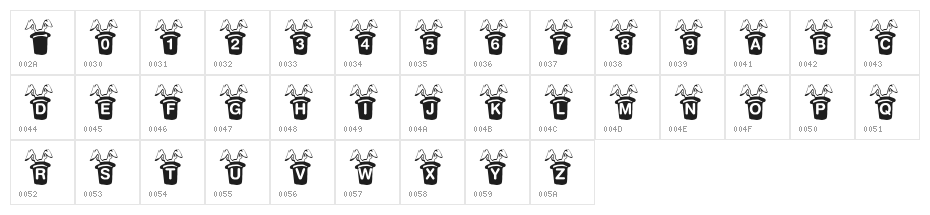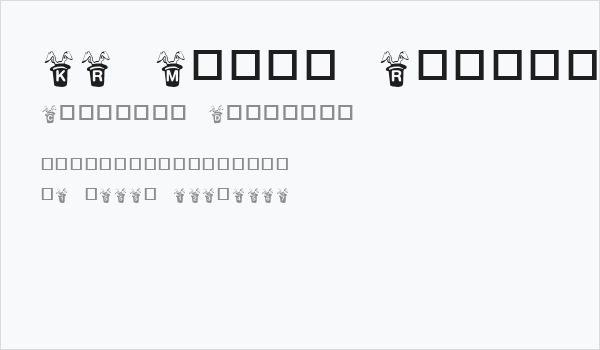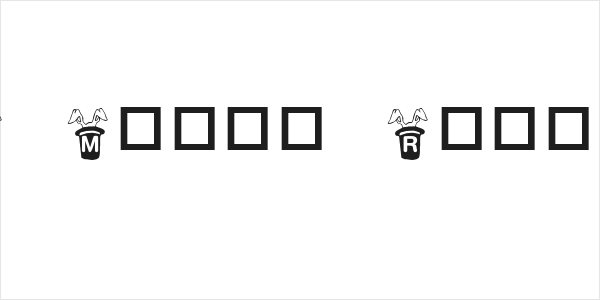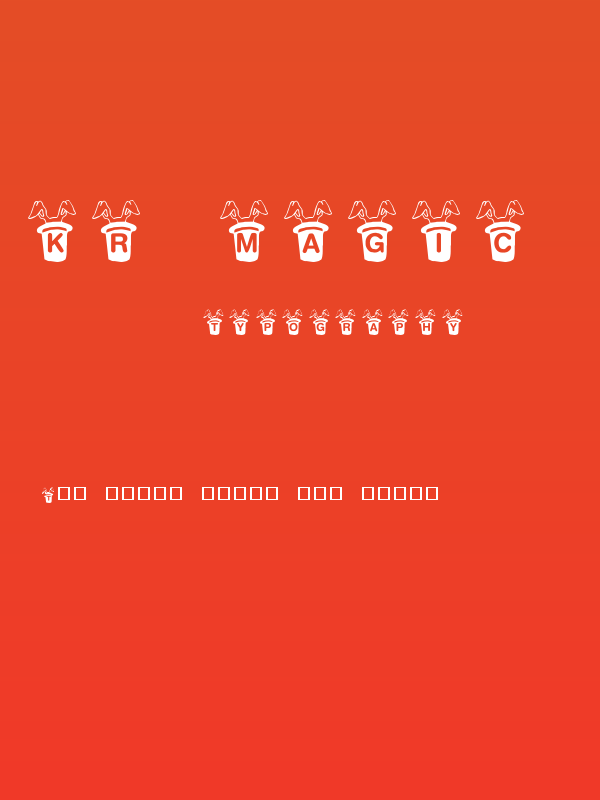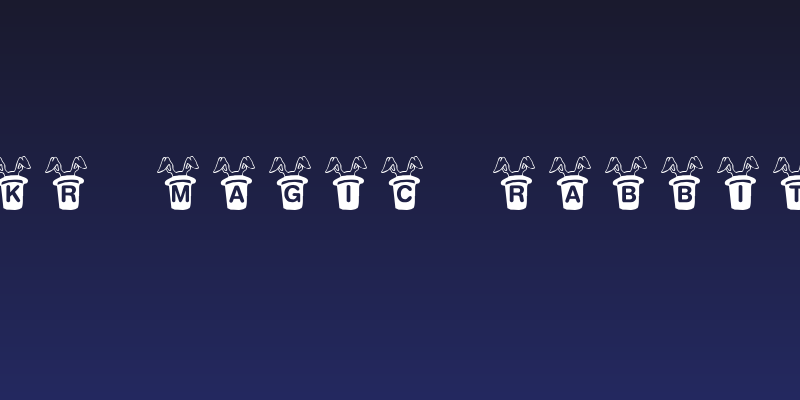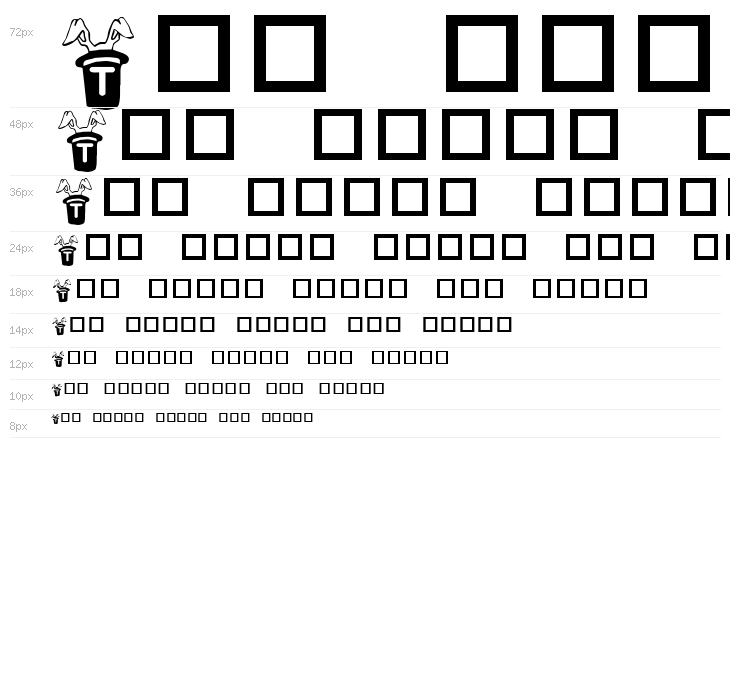
KR Magic Rabbit Font
KR Magic Rabbit Description
This whimsical and playful font features each character emerging from a magician's hat, complete with rabbit ears peeking out. The letters are bold and cartoonish, adding a sense of fun and magic. The design is consistent across uppercase letters, numbers, and special characters, making it ideal for projects that require a touch of enchantment and creativity. The font's unique style is perfect for children's materials, magic-themed events, or any project that aims to captivate and entertain.
| Proposed Projects | Children's books, magic show posters, playful invitations, themed party decorations. |